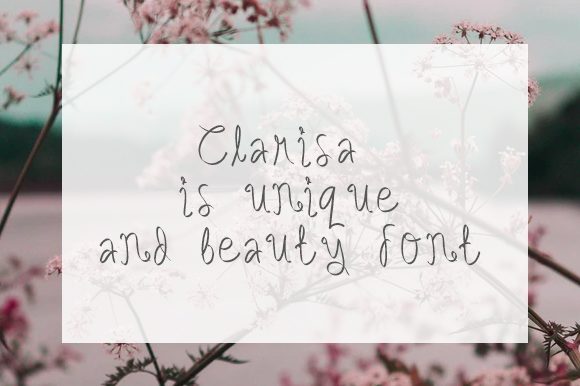
Discover the Charm of Clarisa Font: A Handwritten Gem for DIY Projects
Are you tired of using the same old fonts for your DIY projects? Look no further than Clarisa Font, a stunning handwritten font that is sure to bring a touch of personality and whimsy to your creations. In this article, we’ll dive into the unique features of Clarisa Font, and explore how it can be used to elevate your designs and make them stand out.
The Story Behind Clarisa Font
Clarisa Font results out of a stunning pairing of a brush pen and pencil, which gives it an incredibly endearing and authentic look. The combination of these two tools creates a unique texture and feel that is reminiscent of hand-written letters and notes. This font is perfect for designers and crafters who want to add a personal touch to their work, and create something that feels truly special and one-of-a-kind.
What Makes Clarisa Font So Special?
So, what sets Clarisa Font apart from other handwritten fonts on the market? For starters, its unique blend of brush pen and pencil strokes gives it a distinctive look that is both elegant and playful. The font is also incredibly versatile, and can be used for a wide range of DIY projects, from handmade cards and invitations, to blog posts and social media graphics.
Using Clarisa Font in Your DIY Projects
One of the best things about Clarisa Font is how easy it is to use. Whether you’re a seasoned designer or a crafting newbie, you can easily incorporate this font into your work. Here are just a few ideas to get you started:
- Handmade Cards and Invitations: Use Clarisa Font to add a personal touch to your cards and invitations. You can use it to write out messages, create custom titles, and add decorative flourishes.
- Blog Posts and Social Media Graphics: Add a touch of personality to your blog posts and social media graphics with Clarisa Font. You can use it to create eye-catching headlines, and add decorative text elements to your graphics.
- DIY Crafts: Clarisa Font is also perfect for a wide range of DIY crafts, from scrapbooking and journaling, to knitting and sewing. You can use it to create custom labels, tags, and other embellishments.
Tips for Getting the Most Out of Clarisa Font
To really make Clarisa Font shine, here are a few tips to keep in mind:
- Keep it Simple: While Clarisa Font is incredibly versatile, it’s best to keep your designs simple and uncluttered. This will allow the font to be the star of the show, and prevent your designs from feeling overwhelming.
- Experiment with Colors: Clarisa Font looks great in a wide range of colors, so don’t be afraid to experiment and find the perfect hue for your project.
- Mix and Match: Clarisa Font also pairs well with other fonts and graphics, so feel free to mix and match to create a unique look that’s all your own.
Clarisa Font is a truly unique and special handwritten font that is sure to bring a touch of personality and whimsy to your DIY projects. With its stunning pairing of brush pen and pencil strokes, this font is perfect for designers and crafters who want to create something that feels truly special and one-of-a-kind. So why wait? Download Clarisa Font today, and start bringing your DIY projects to life!